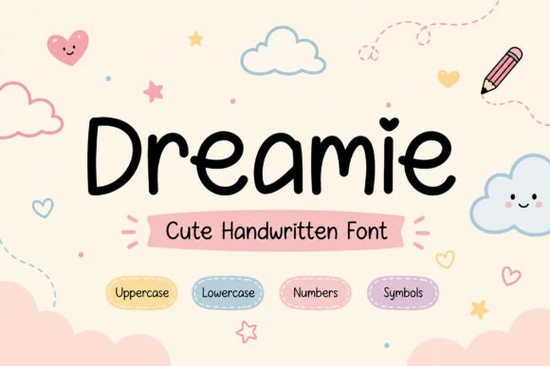
If you're looking for a display font that brings soft charm and modern flair to your designs, Dreamie Font is worth checking out. It’s not just another decorative typeface it’s thoughtfully crafted with unique letterforms that feel both playful and polished. Whether you’re designing a logo, creating social media graphics, or making greeting cards, Dreamie adds personality without overwhelming the message.
What makes Dreamie Font stand out?
Dreamie isn’t just about looks it’s built for real creative work. The font includes uppercase and lowercase letters, numbers, and standard punctuation, so you can use it across many types of projects. It’s also PUA encoded, which means all characters are accessible without needing special keyboard setups. That’s a big help when you're working on tight deadlines or using multiple design tools.
Where can you use Dreamie Font?
Because of its balanced mix of elegance and whimsy, Dreamie works well in a wide range of applications:
- Logo design – Add a personal touch to brand names that feel warm and inviting.
- Packaging & product labels – Great for small businesses selling handmade goods, candles, or skincare products.
- Social media posts – Perfect for quote graphics, announcements, or promotional banners.
- Invitations & greeting cards – Ideal for baby showers, weddings, or birthday celebrations.
- Book covers & posters – Works well for indie authors, artists, or event promotions.
- Fashion & apparel branding – Use it on t-shirts, tote bags, or embroidered patches for a stylish look.
It’s especially effective when paired with minimalist layouts or soft pastel backgrounds. The delicate curves and rounded edges make it feel friendly, while still maintaining a professional finish.
How does Dreamie compare to similar fonts?
If you’ve explored other display fonts, you might have come across options like Takashi Japan Font, Oxanium Font, or Roughcraft Font. Each has its own vibe: Takashi leans into Japanese-inspired minimalism, Oxanium offers a hand-drawn edge, and Roughcraft gives a rugged, textured feel. Dreamie sits somewhere between those styles more refined than rough, but still full of character.
For something even more playful, Whimsy Curl Font uses bouncy, curling strokes that might be too busy for some projects. Dreamie keeps things balanced it’s expressive, but not distracting.
Best practices for using Dreamie effectively
To get the most from Dreamie, keep these tips in mind:
- Use it for headlines or short text only it’s not ideal for long blocks of body copy.
- Pair it with clean, simple fonts (like a sans-serif) to avoid visual clutter.
- Adjust spacing between letters if needed sometimes tightening or loosening kerning improves readability.
- Test how it looks in different sizes. On smaller scales, details might fade; on large formats, it shines.
Also, remember that every font has its moment. Dreamie is perfect for projects where tone matters think cozy brands, artistic ventures, or heartfelt messages.